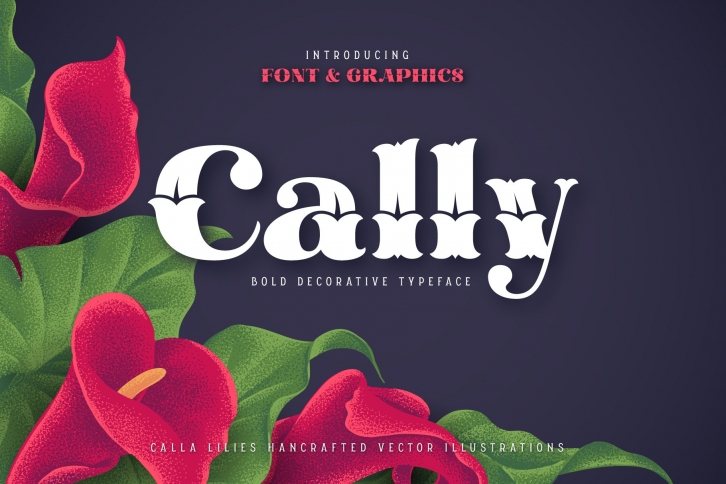
Cally & Graphics is a beautiful font that was designed by Gleb Guralnyk. It's a great choice for designers and creatives who need such a font. It was released on July 28, 2020 and the file size is 7.69 MB. Cally & Graphics may give a more youthful, expressive and casual look to your project. It is a very beautiful, refined, elegant, and high-quality font.